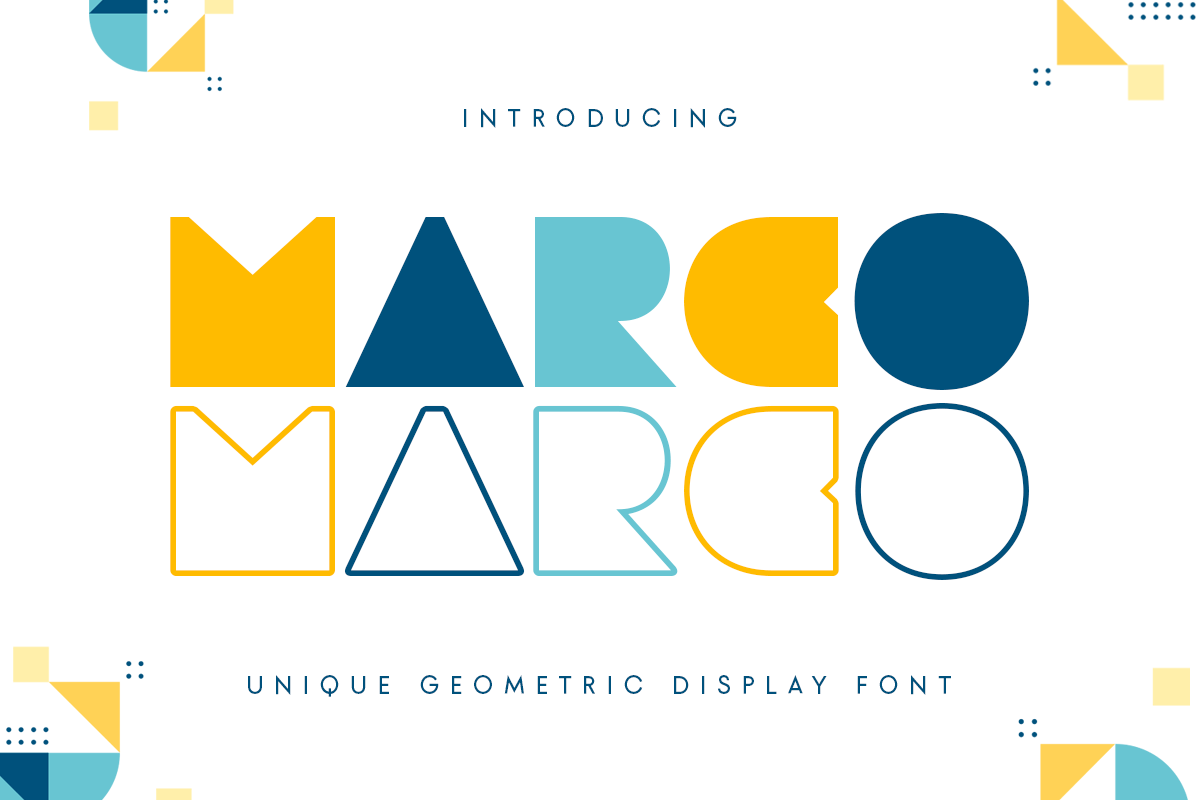
MARCO
-Unique Geometric Display Font
MARCO is an Unique Geometric Display Font that perfect for headline, branding, logo, poster design, etc
A new Display Font that we created special for Headline, Title and more stand out typography needs. It’s so perfect to add your style and headline overview. And specially for Headline font, we crafted for unique style and modern feels so enjoy to create any project that will show your main idea out.
• Unique style with Regular and Outline to get creative variations